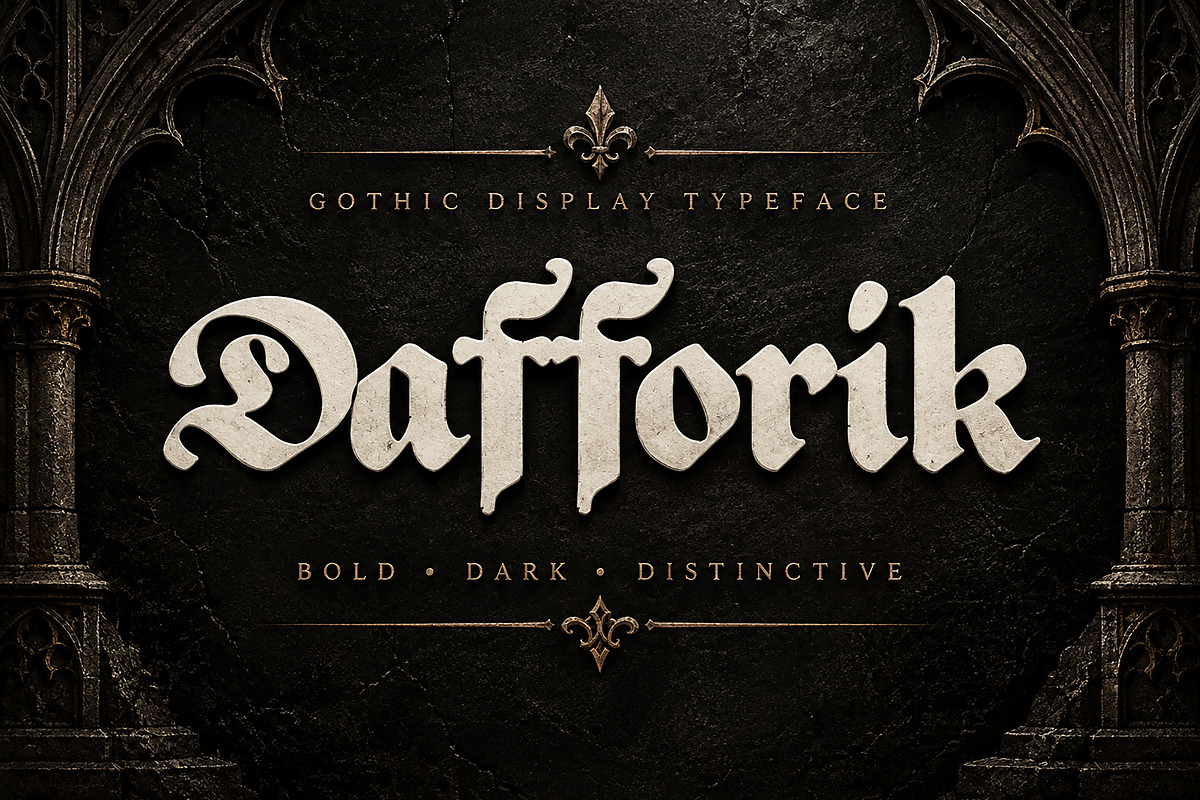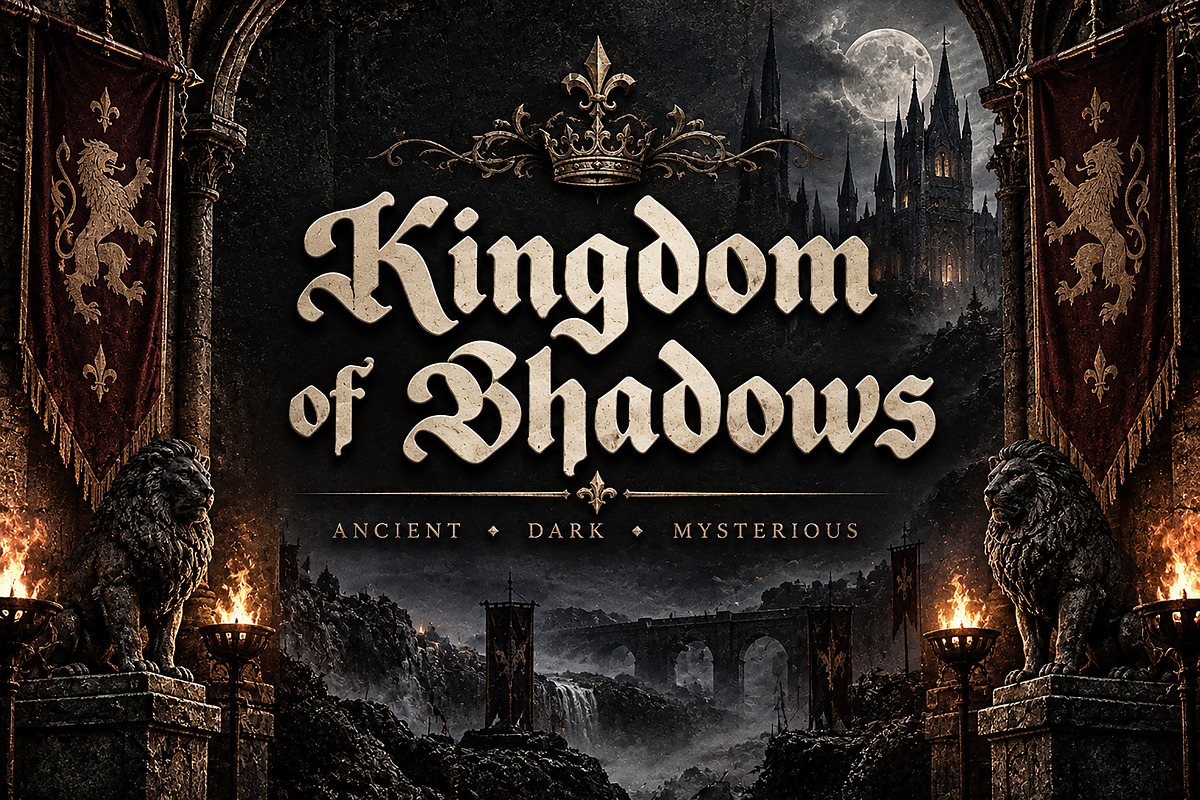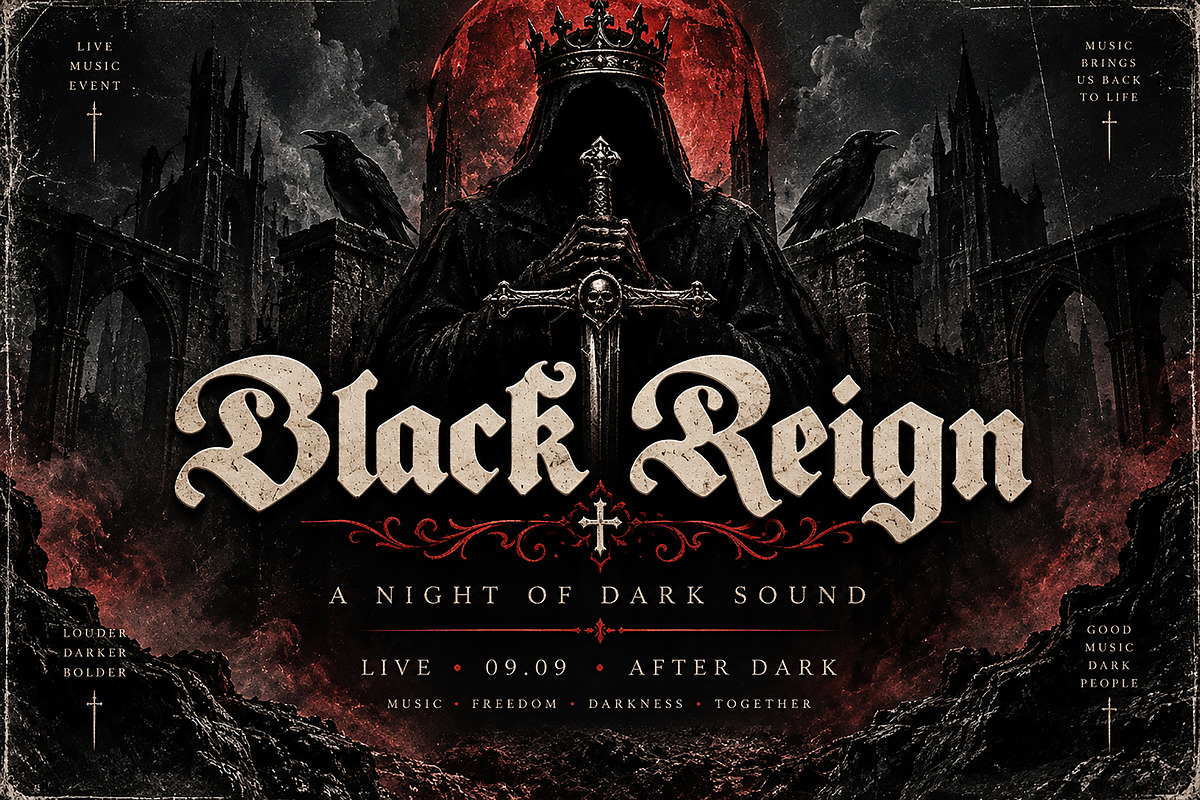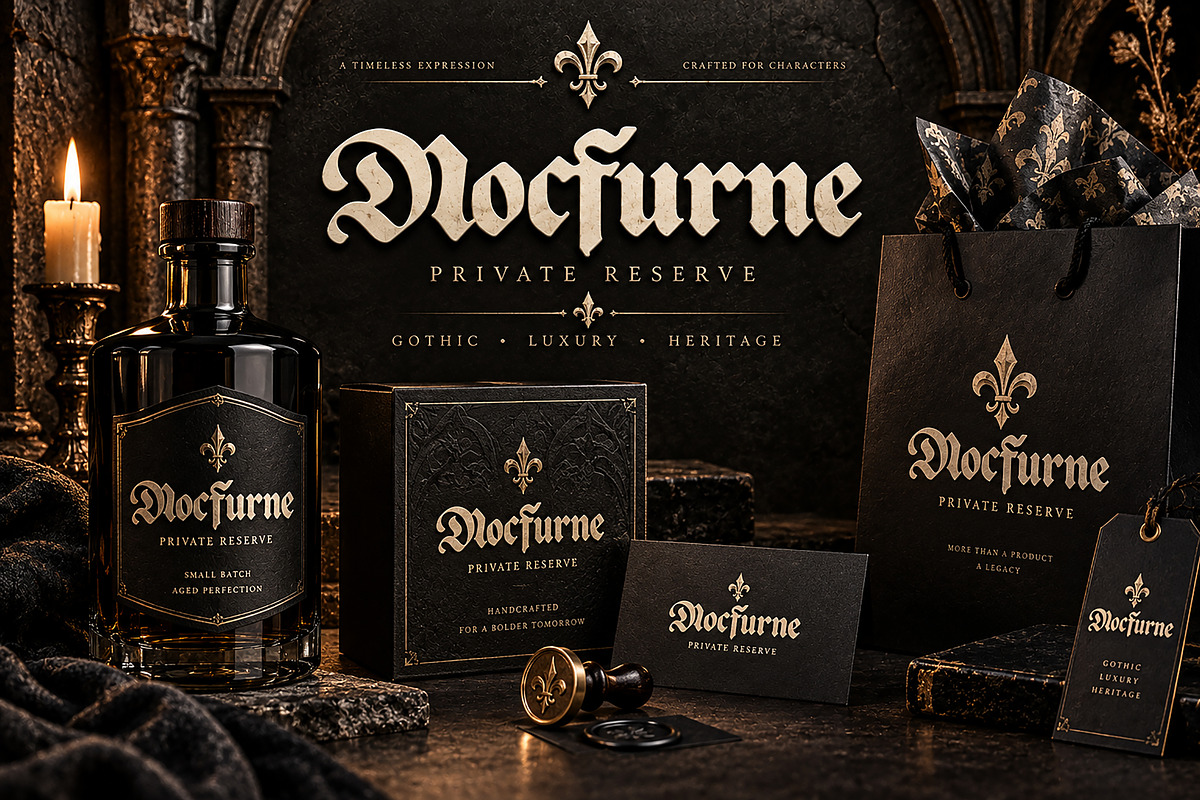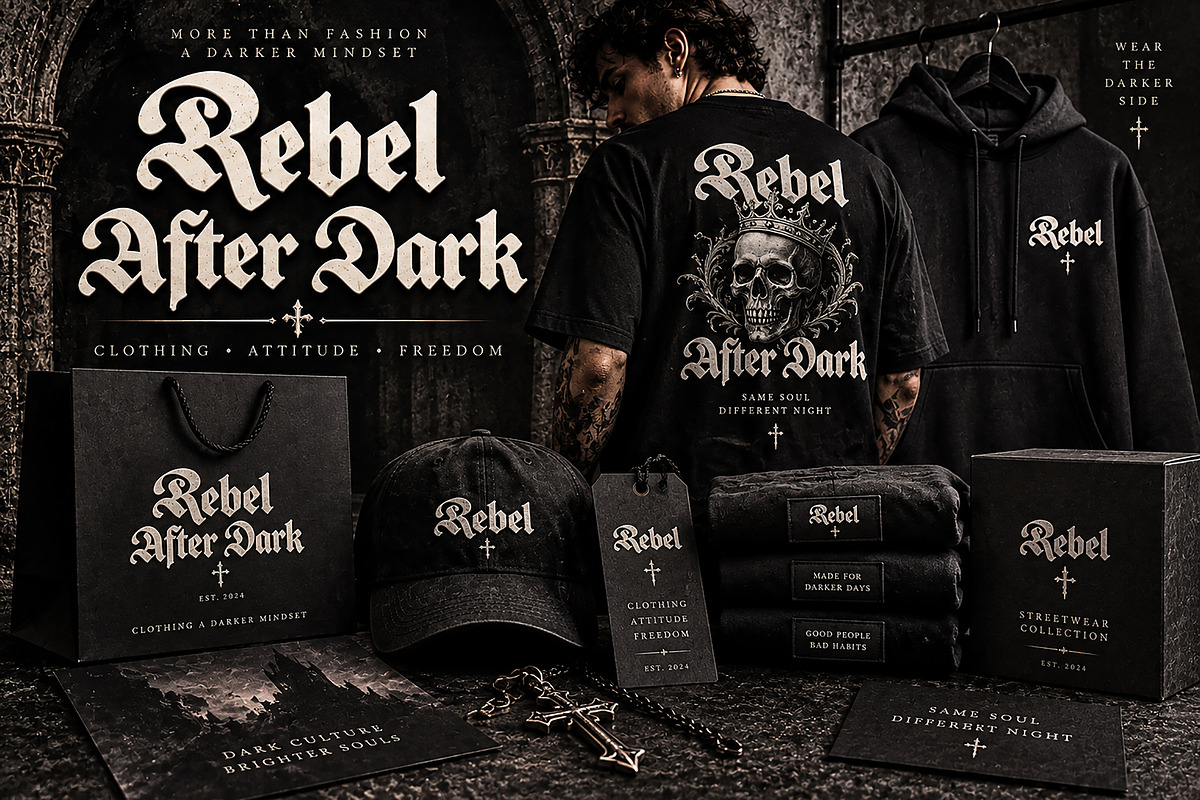
Dafforik
Dafforik — Gothic Blackletter Display Font
Dafforik is a bold and dramatic Gothic Blackletter display font designed to bring a dark, powerful, and distinctive character to your creative projects. With its strong medieval-inspired letterforms and striking visual presence, Dafforik is perfect for designs that need an authentic gothic, rebellious, or mysterious atmosphere.
Its expressive style works beautifully for logos, branding, apparel, posters, album artwork, event graphics, packaging, labels, book covers, invitations, merchandise, and social media designs.
Whether you're creating a premium gothic brand identity, dark streetwear collection, medieval-inspired artwork, music graphics, or eye-catching display typography, Dafforik adds an instantly recognizable visual personality.
Gothic & Blackletter Branding
Streetwear & Apparel
T-Shirt & Hoodie Designs
Band & Music Artwork
Album Covers
Concert Posters
Medieval & Fantasy Designs
Posters & Flyers
Labels & Badges
Tattoos & Merchandise
Editorial & Display Typography
Bold Gothic / Blackletter style
Strong and distinctive display character
Ideal for headlines and large typography
Suitable for both digital and print projects
Great for branding and merchandise
Designed for impactful visual compositions